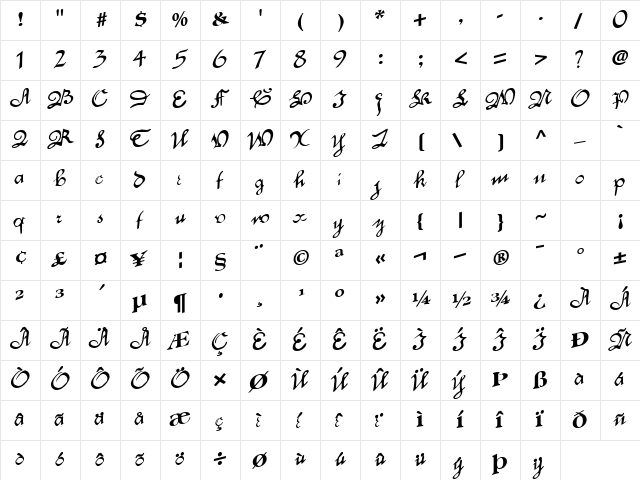
CapSizeBold Bold
Design Context for CapSizeBold Typeface
CapSizeBold is a composed and adaptable typeface that performs quietly and consistently across a wide range of design contexts. Its bold stroke weight gives it real presence on the page.